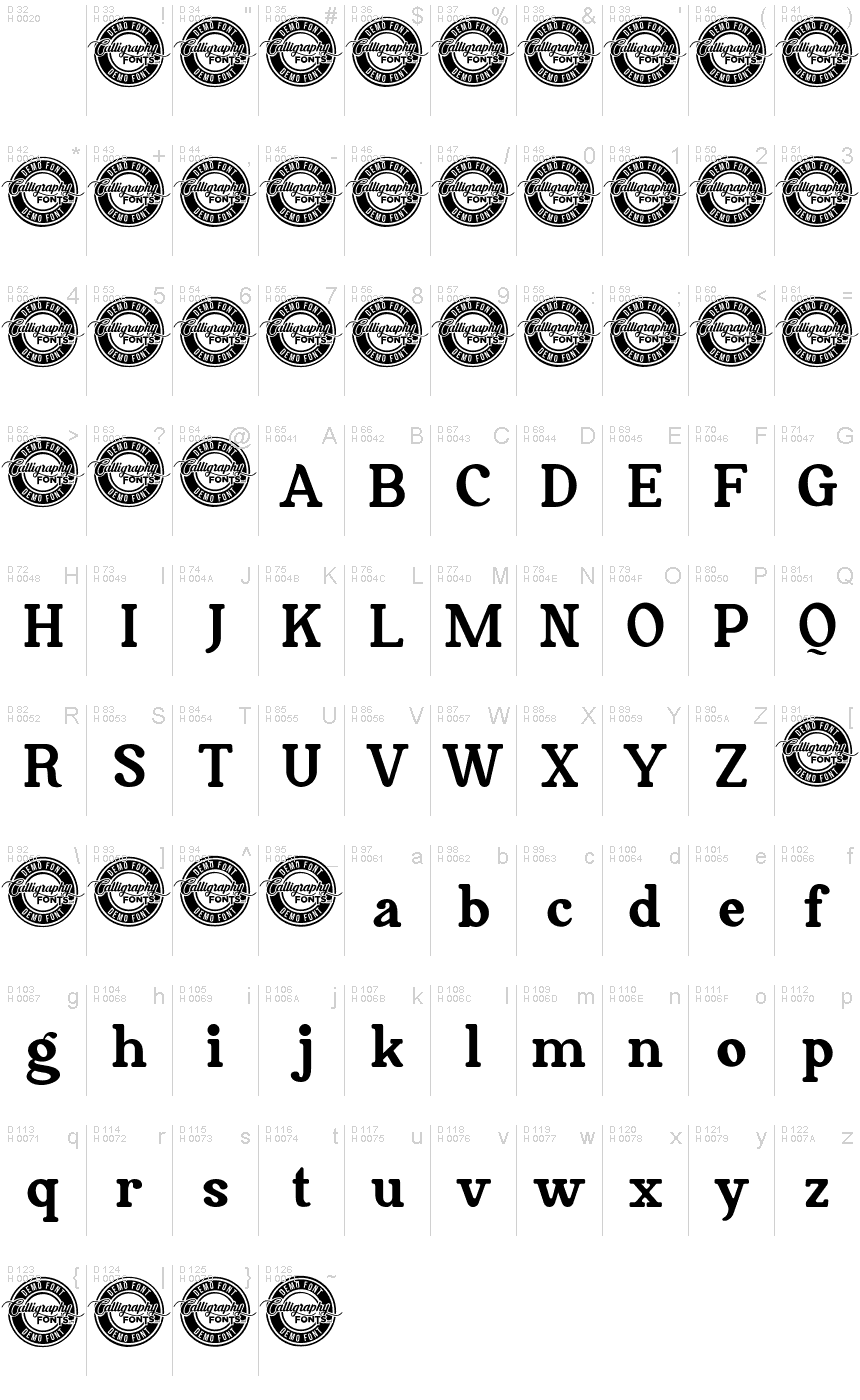
Trackwalker Demo
Trackwalker, a captivating serif font by Calligraphy Fonts, combines elegance with a touch of boldness. Its semi-bold weight exudes confidence while maintaining readability, making it ideal for a broad range of projects. With its refined strokes and classic appeal, Trackwalker adds sophistication to print materials like book covers and magazine layouts.
Its versatility also shines in branding designs, where it can elevate logos and packaging with its timeless charm. Whether used in elegant invitations or professional presentations, Trackwalker brings a sense of grace to any project it graces.